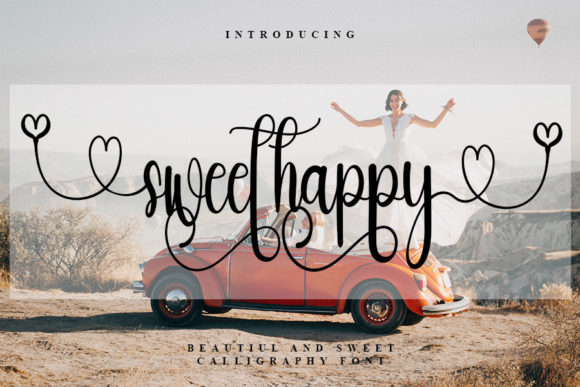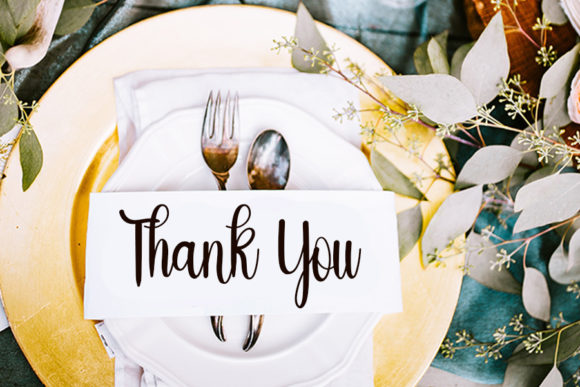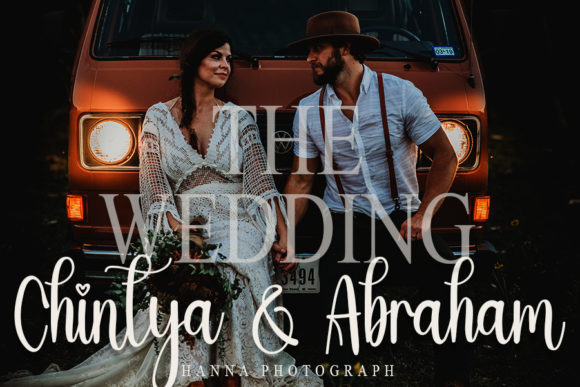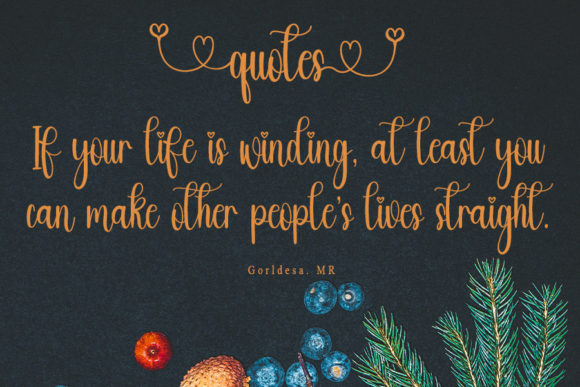
About Sweet Happy Font
Sweet Happy is a romantic and sweet calligraphy typeface with characters that dance along the baseline. It will add a luxury spark to any design project that you wish to create! This font is PUA encoded which means you can access all of the amazing glyphs and ligatures with ease!